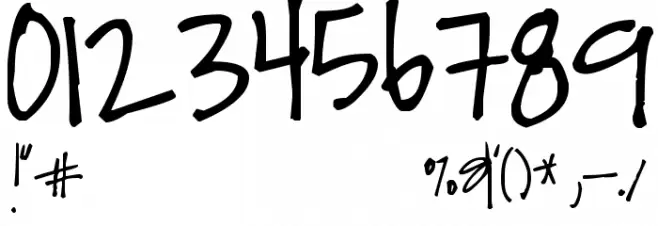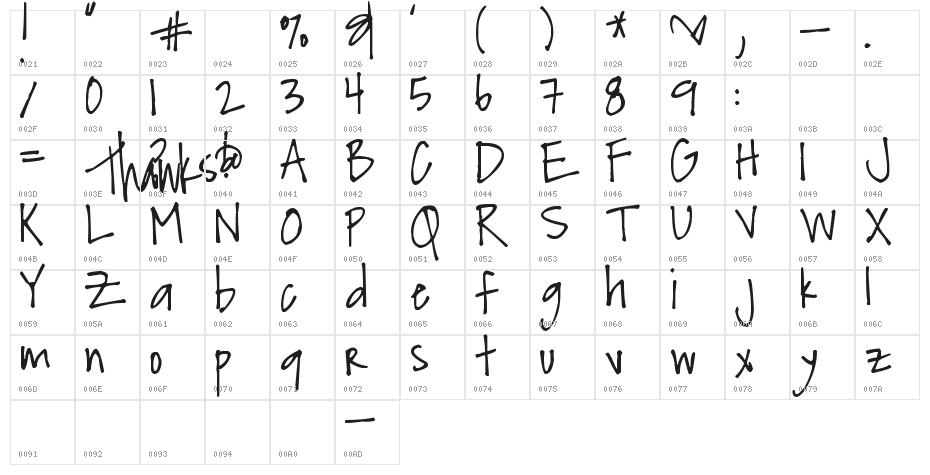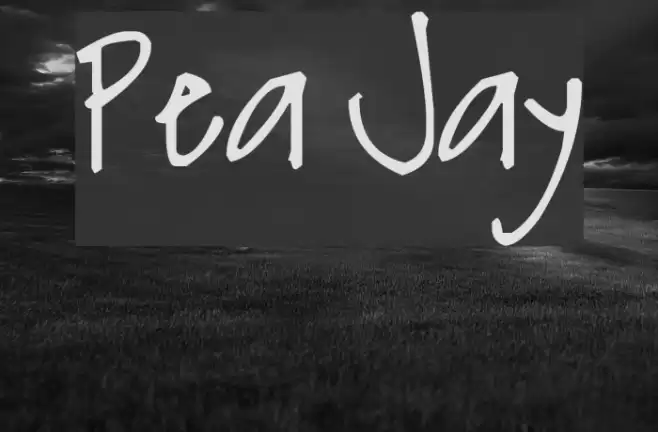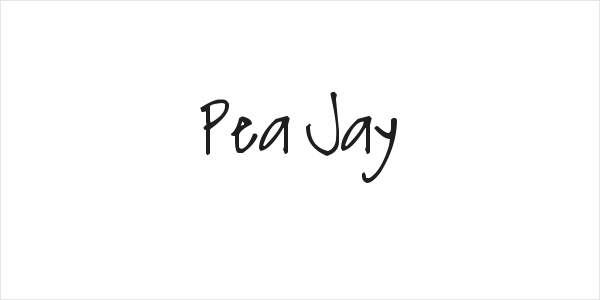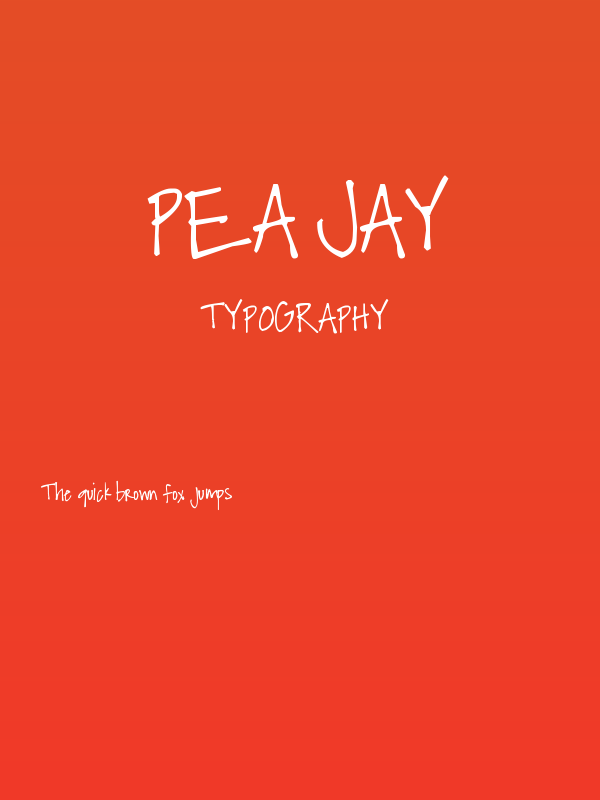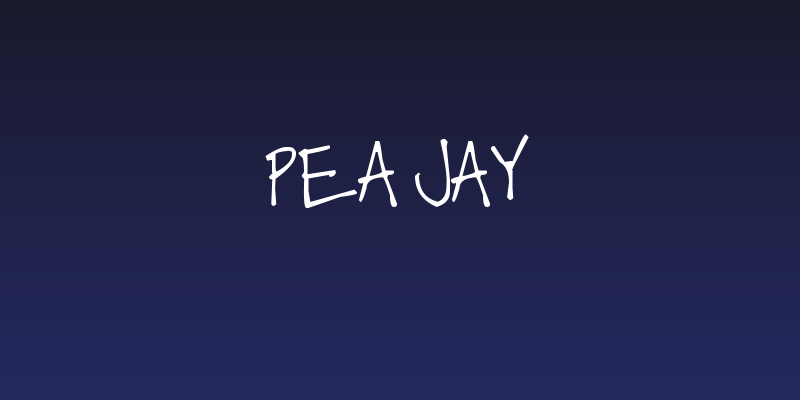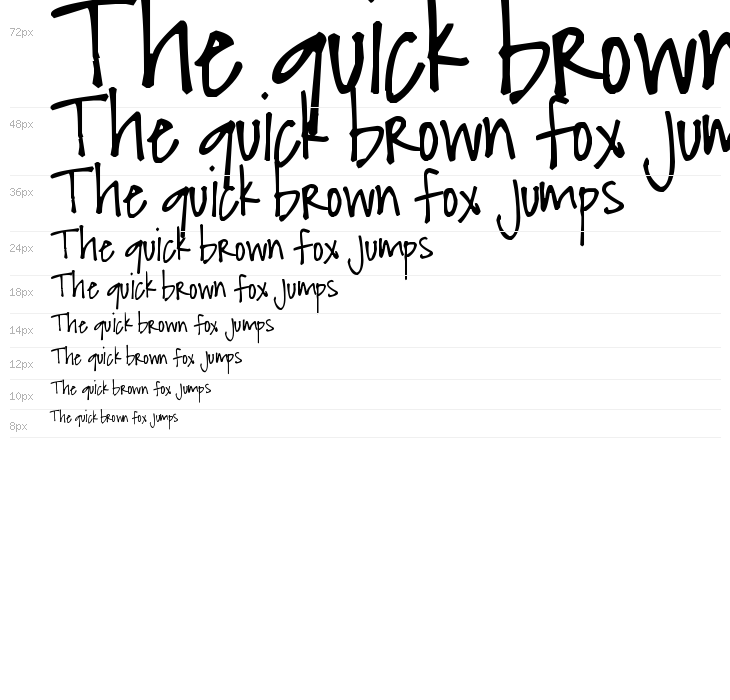
Pea Jay Font
Pea Jay Description
This font exudes a playful and informal vibe, characterized by its handwritten style that mimics the natural flow of casual penmanship. The letters are slightly irregular, adding a personal touch that feels both approachable and friendly. The uppercase and lowercase letters maintain a consistent style, with a slight slant and varying stroke thickness that enhances its handwritten appearance. The numerals and special characters follow the same aesthetic, ensuring a cohesive look across all text elements. This font is perfect for projects that require a personal, human touch, such as greeting cards, invitations, or informal branding.
| Use Case | Informal communications, personal projects, creative designs. |
| Proposed Projects | Ideal for greeting cards, invitations, personal branding, and informal communications. |